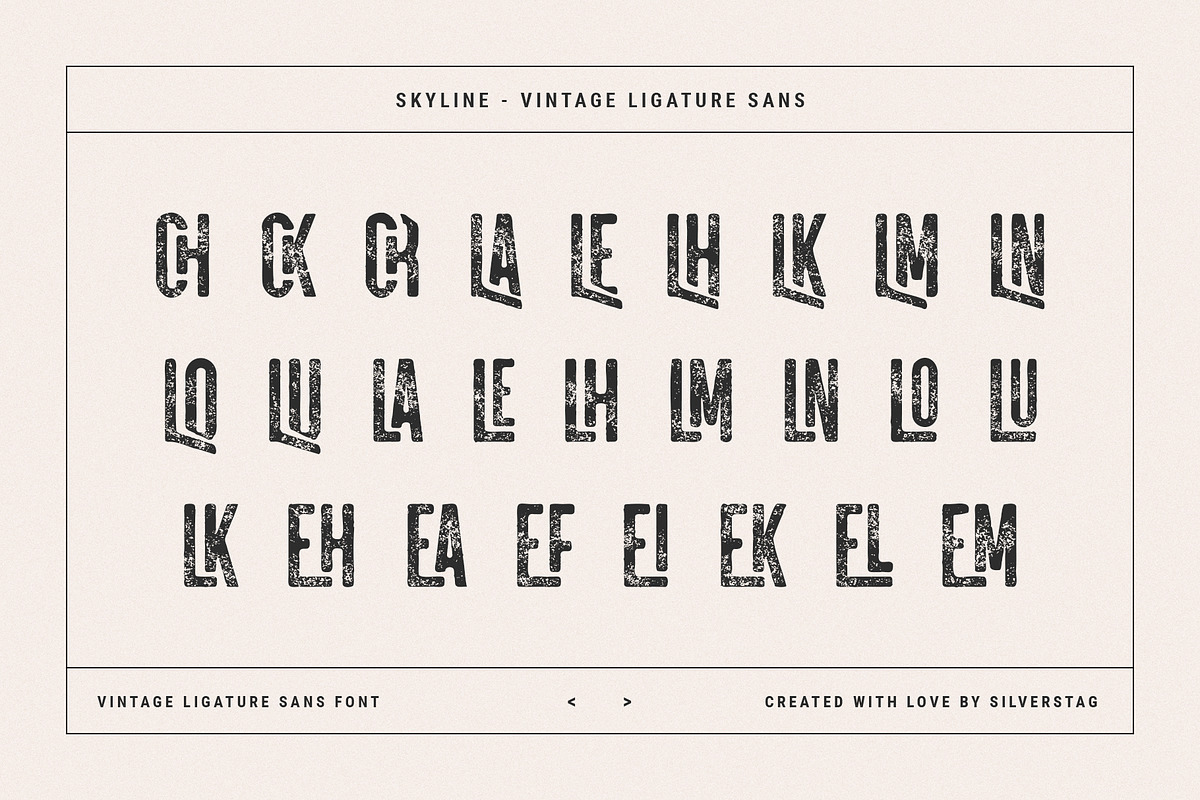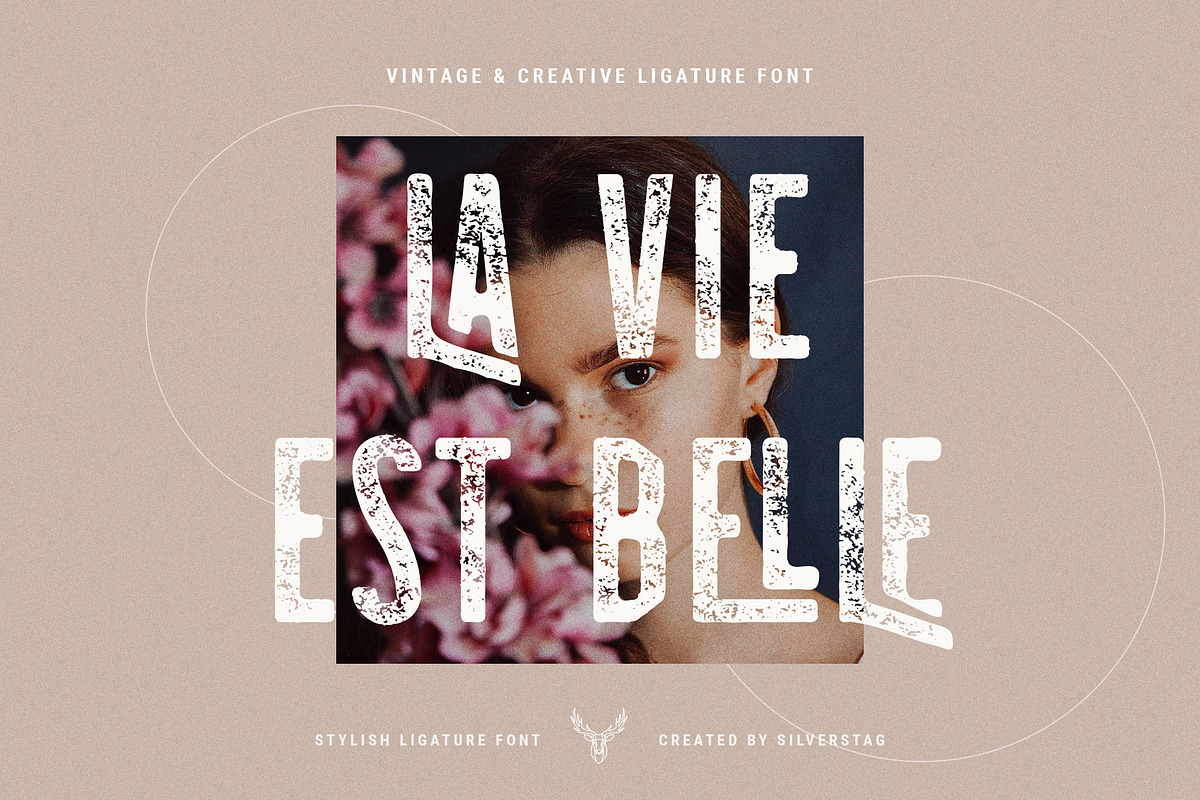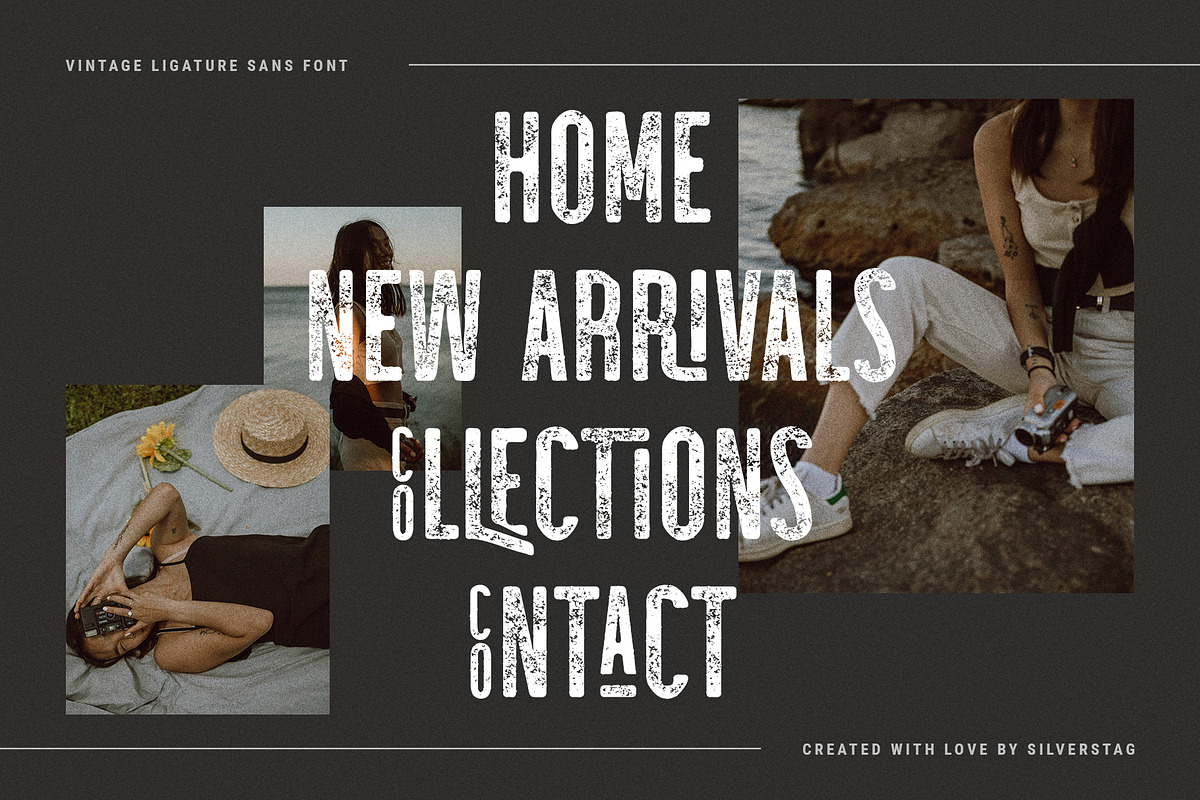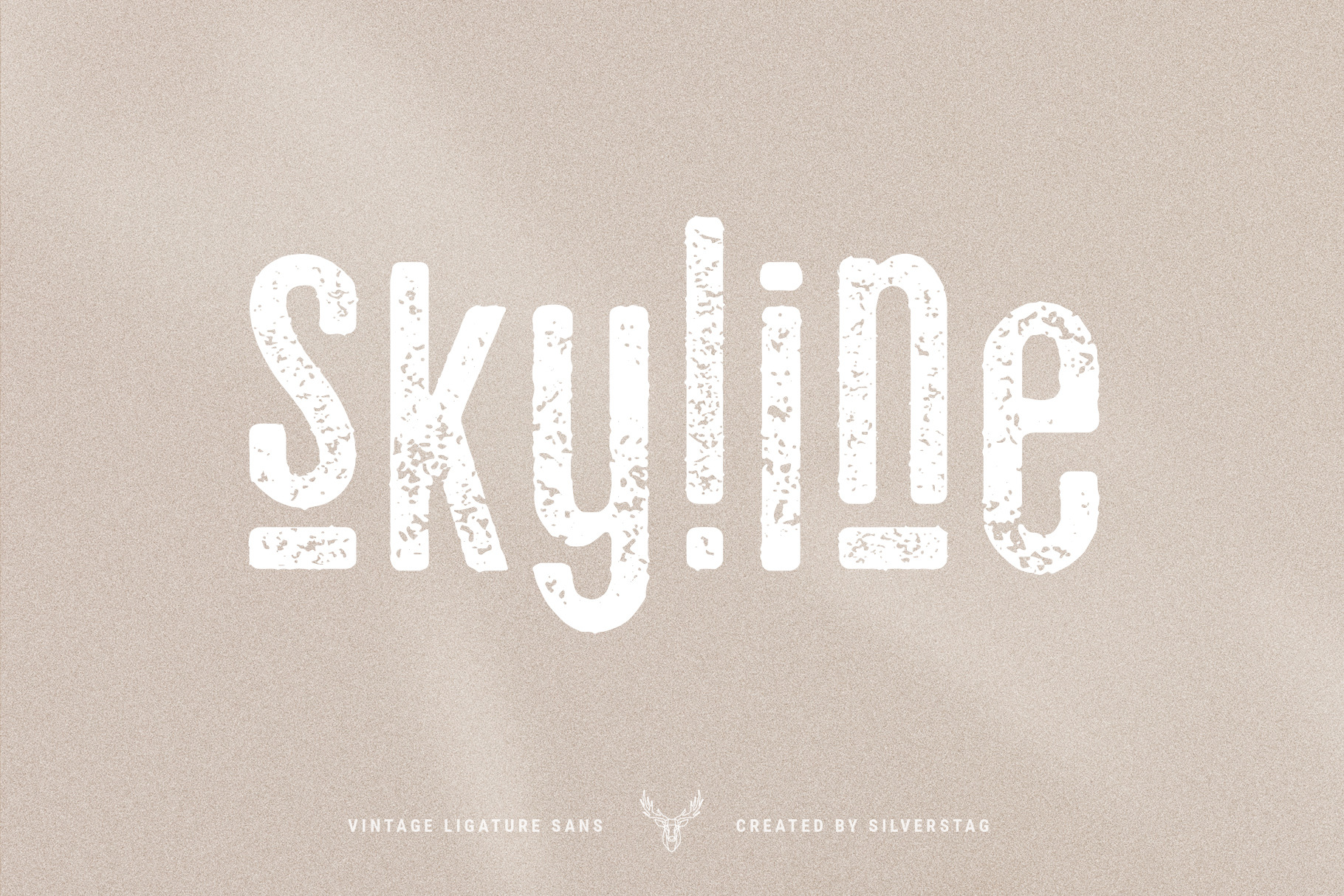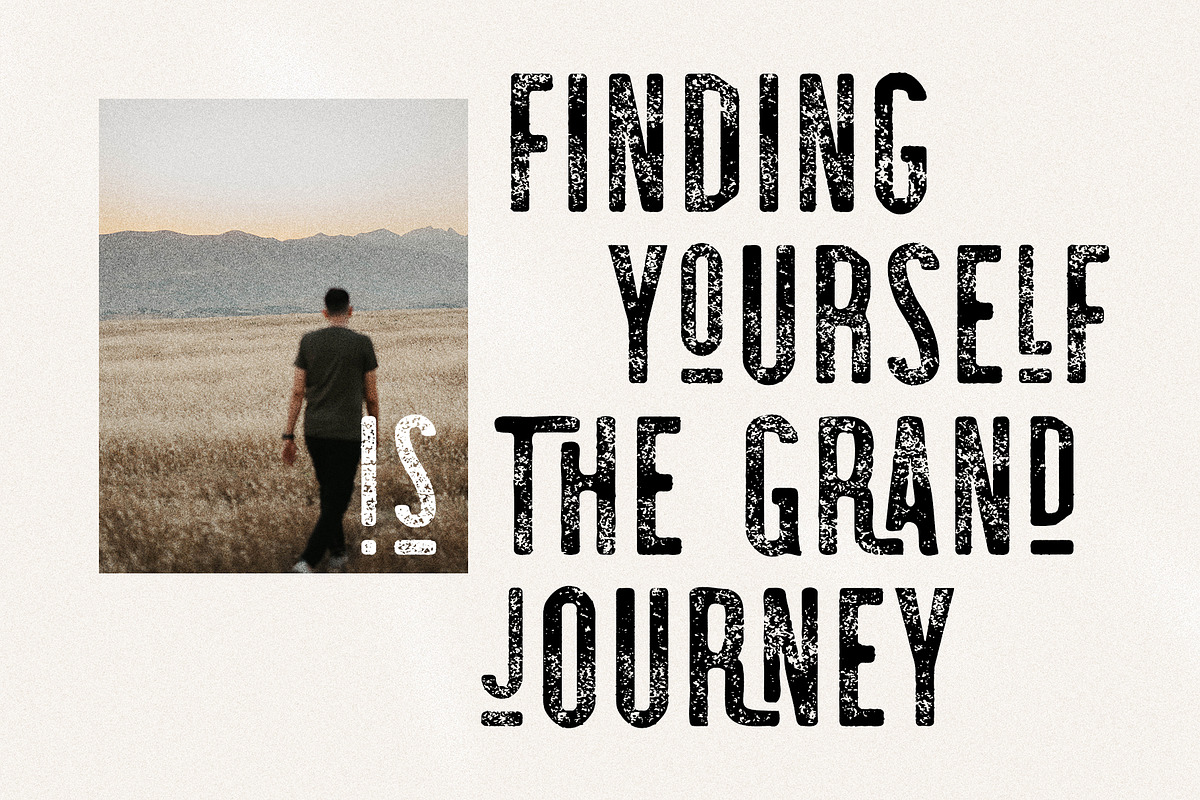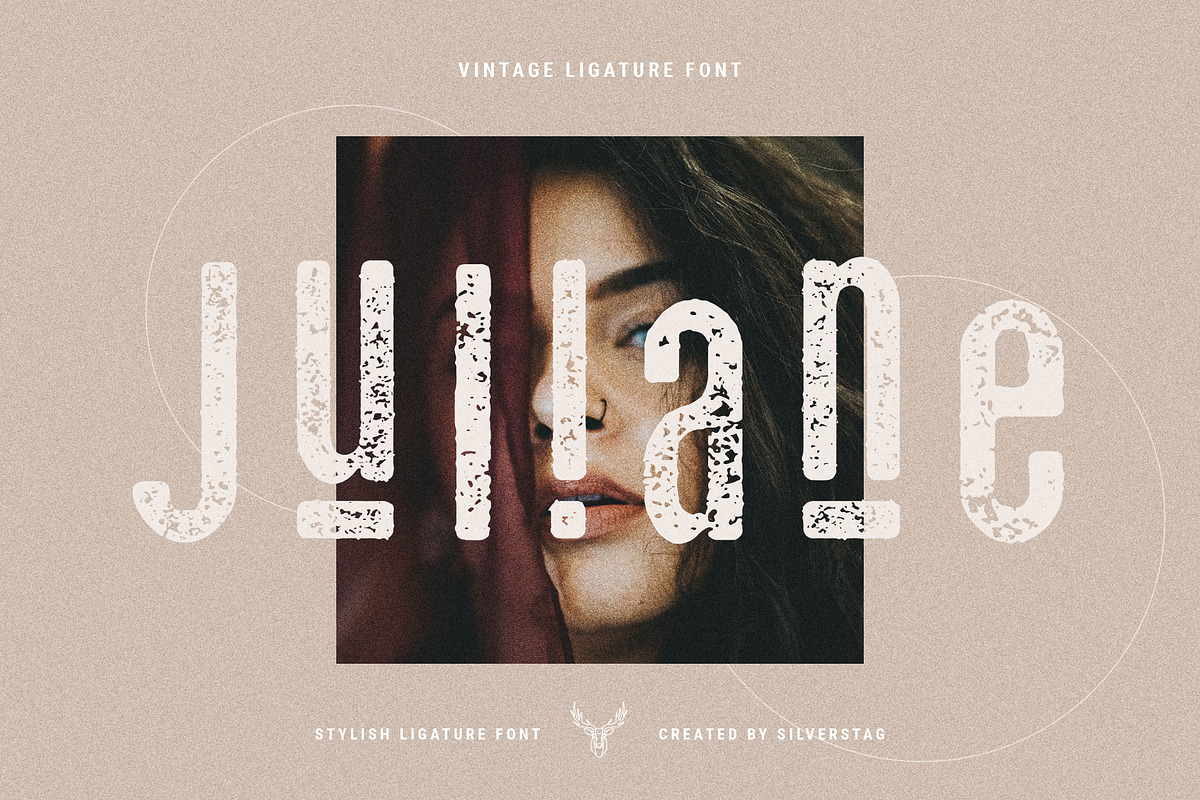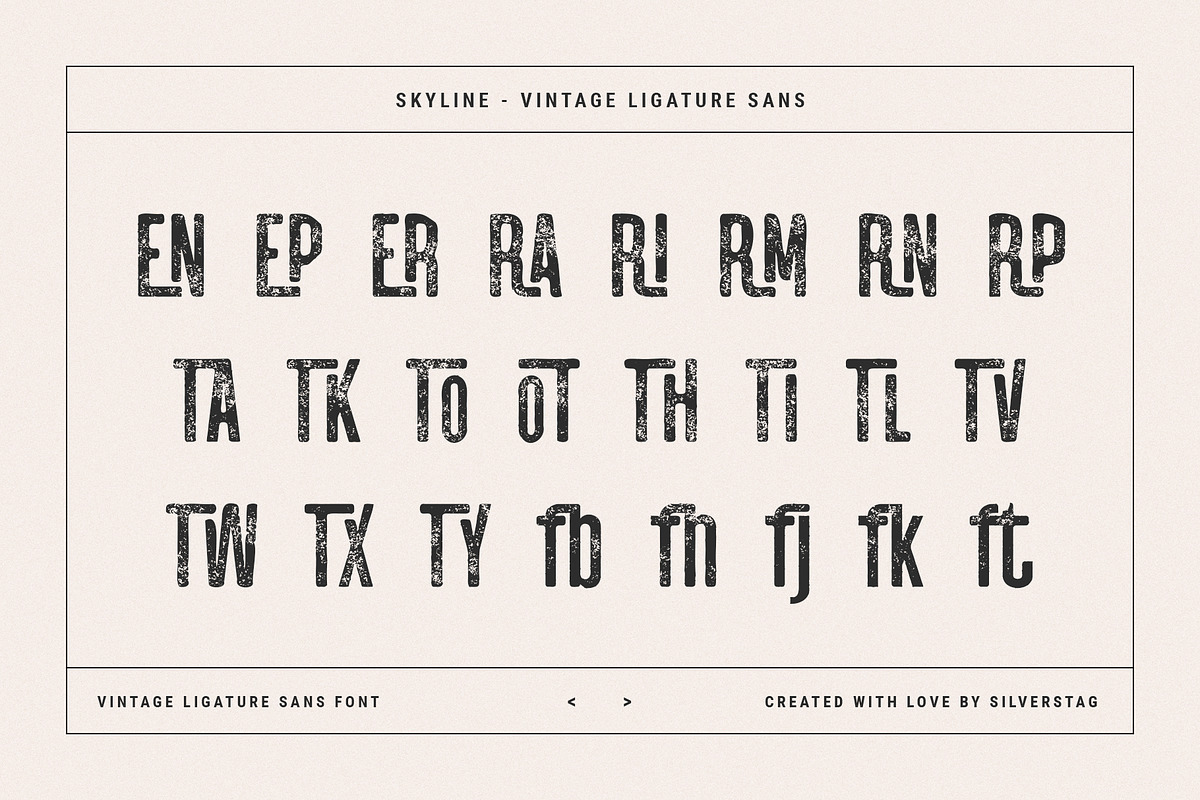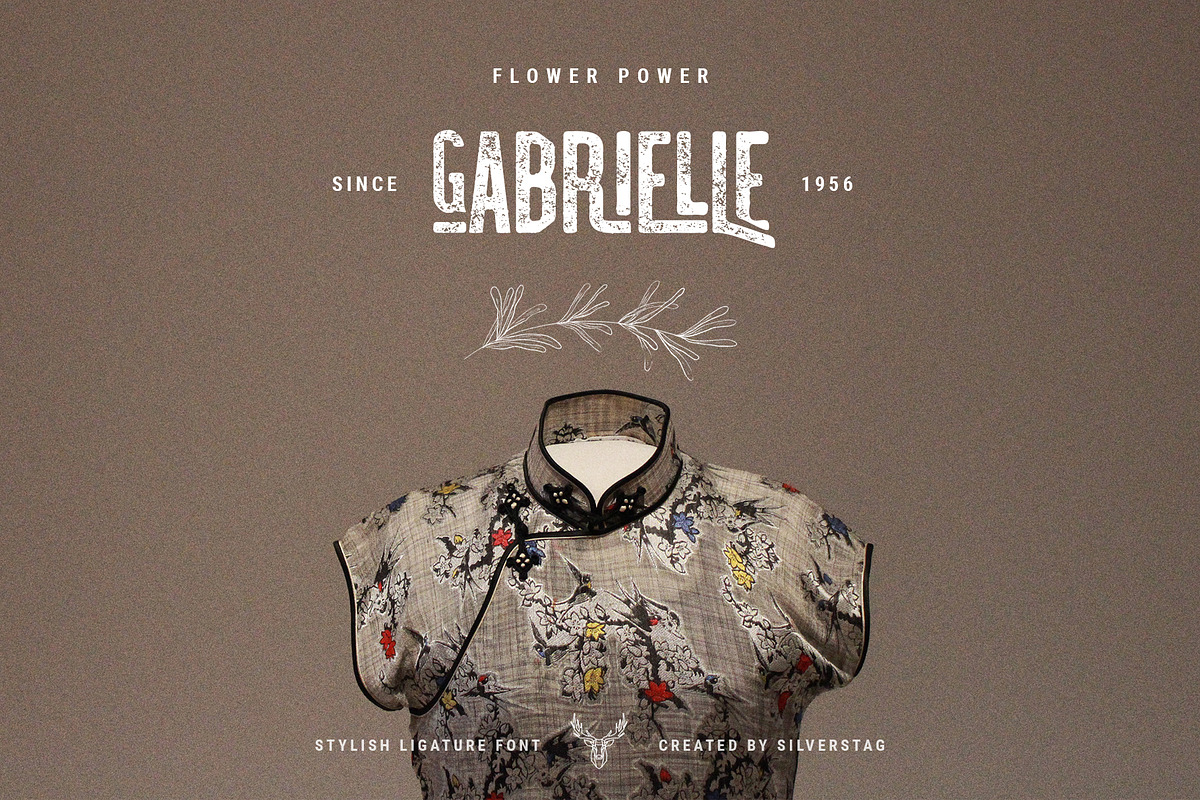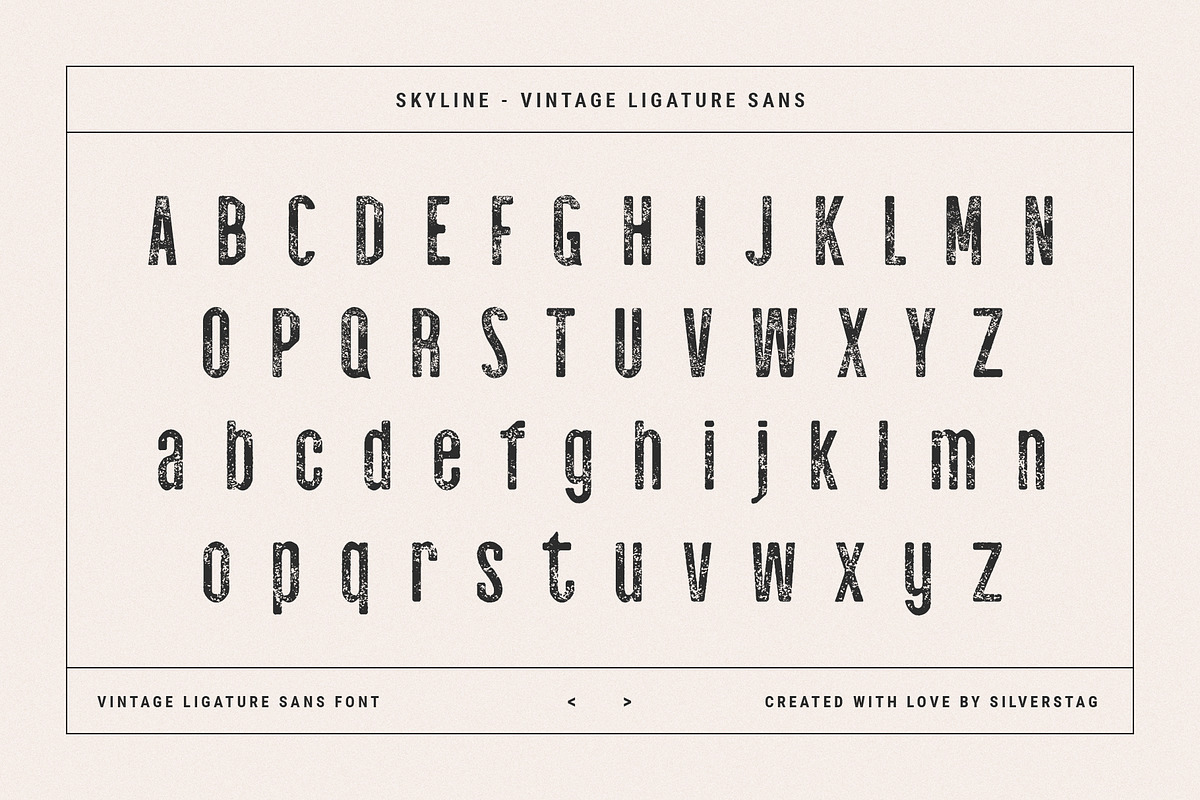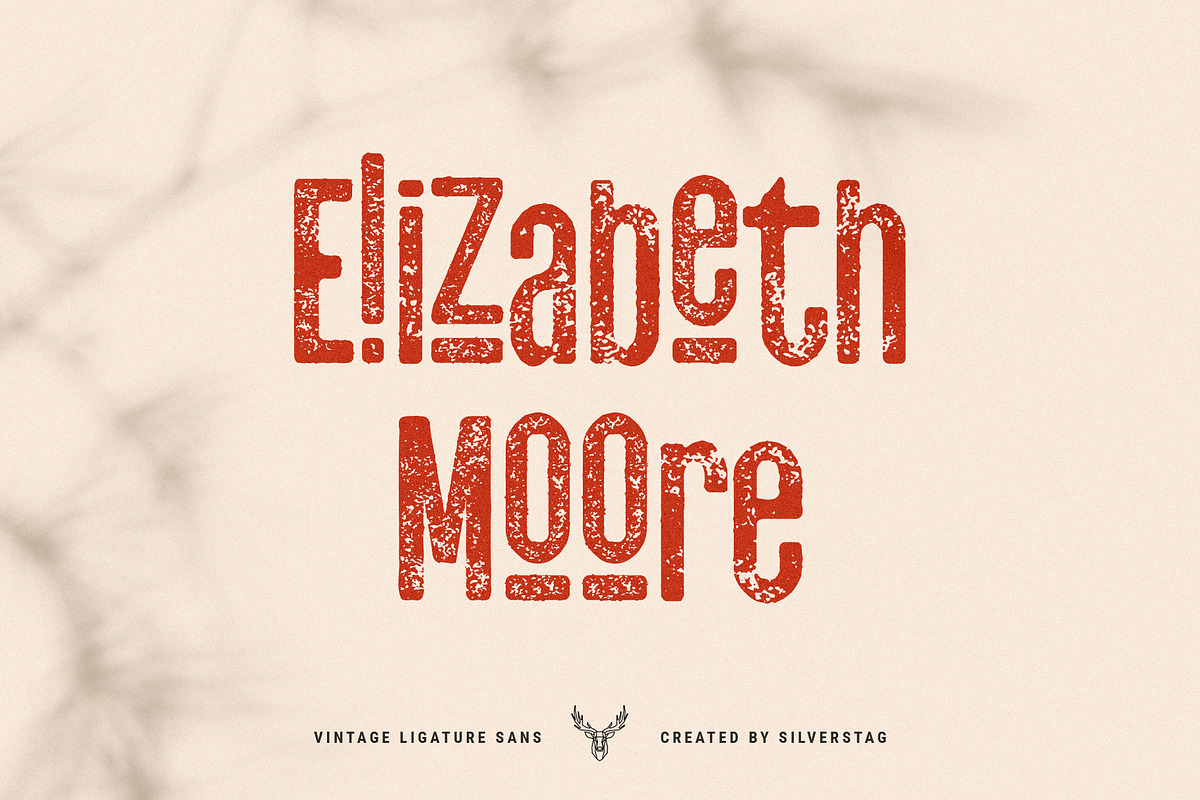
skyline - vintage ligature sans font
skyline is a brand new, condensed vintage ligature sans font and includes over 100 ligatures and alternate letters, each of them with their unique texture and shape. I have been working on this font for almost 2 months making sure that each letter is unique and that each ligature will enhance your work and product.
With it's unique and creative ligatures skyline stands out and will make your projects stand out as well. Just have a look at the ligatures on the product pictures and you'll see what kind of potential it has.
skyline - vintage ligature sans font:
- 106 Ligatures & Alternate letters
- Lowercase and Uppercase letters
The following letters are included: A À Á Â Ã Ä Å C Ç D Ð E È É Ê Ë I Ì Í Î Ï N Ñ O Ø Ò Ó Ô Õ Ö U Ù Ü Ú Û W Ẃ Ŵ ẄẀ Y Ý Ÿ Ỳ Ÿ Æ Œ ß Þ þ and many many more, in uppercase and lowercase so skylar sans supports a huge number of languages.